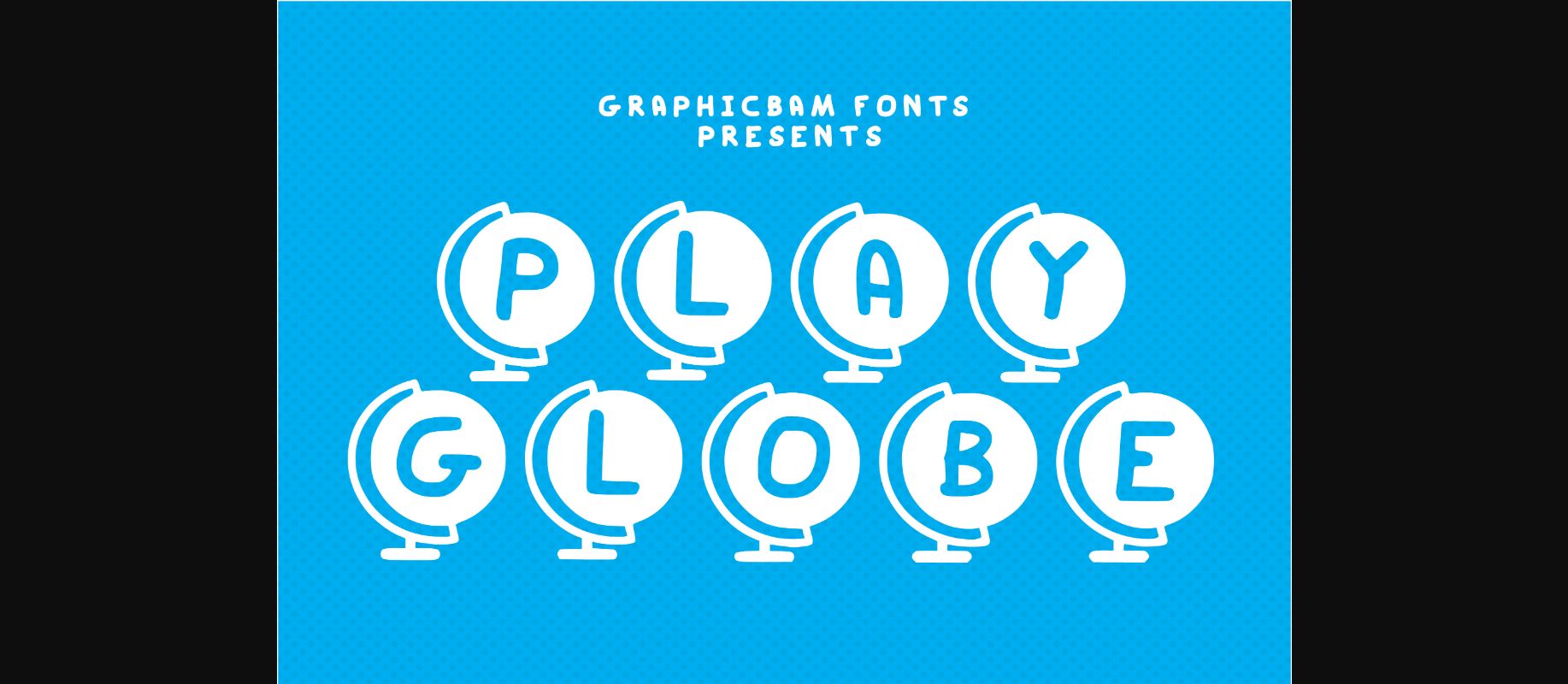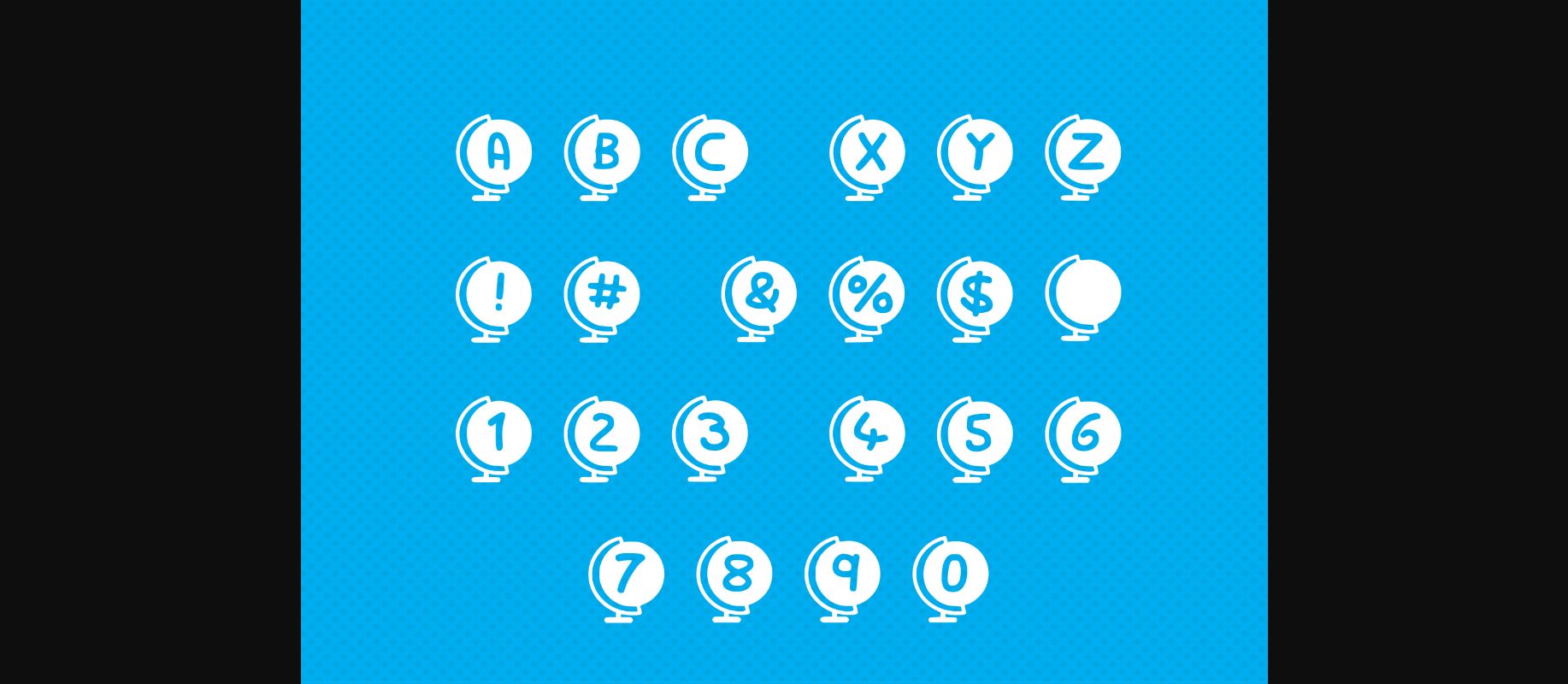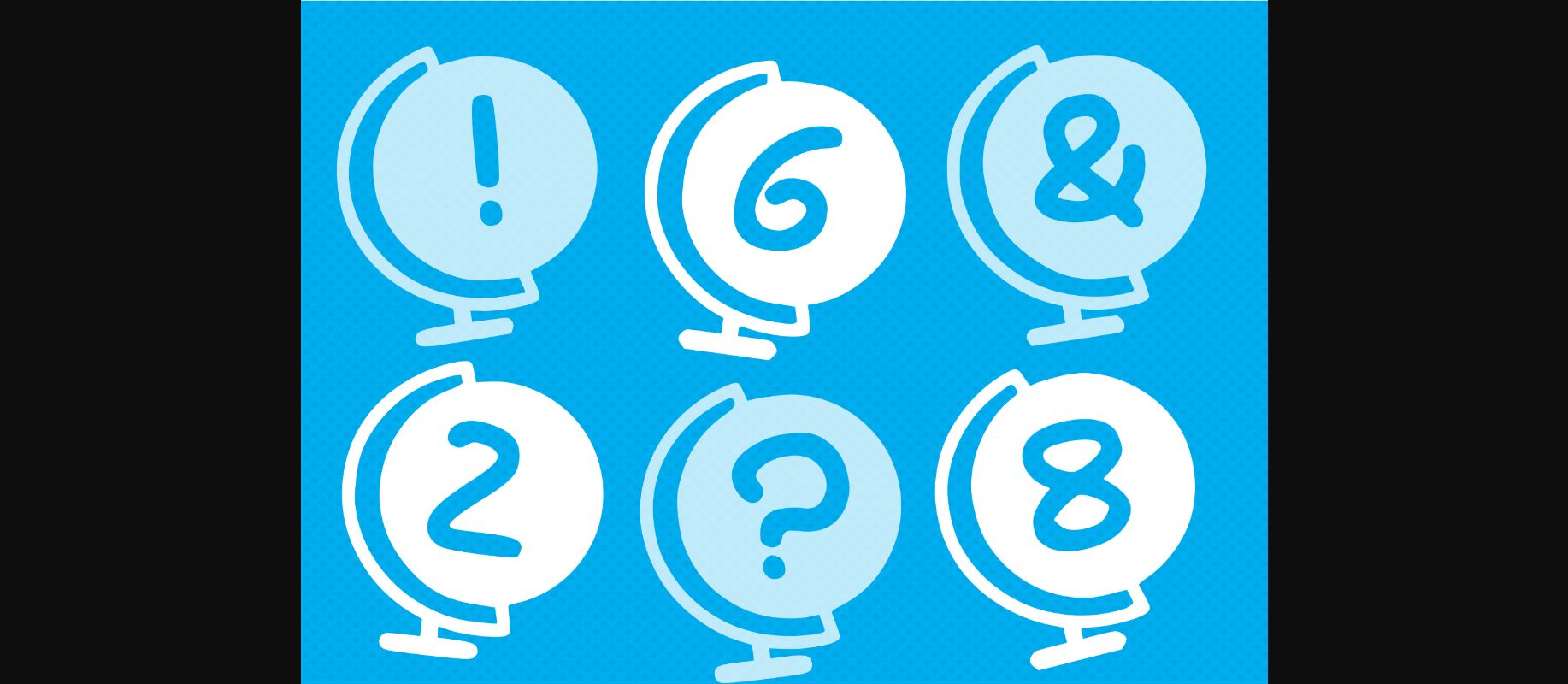
About Play Globe Font
Play Globe is a decorative font fit for a creative mind! It gives you endless possibilities of use, from geography-related items to travel agency branding, worldwide companies, environment-related campaigns, maps, and so much more.